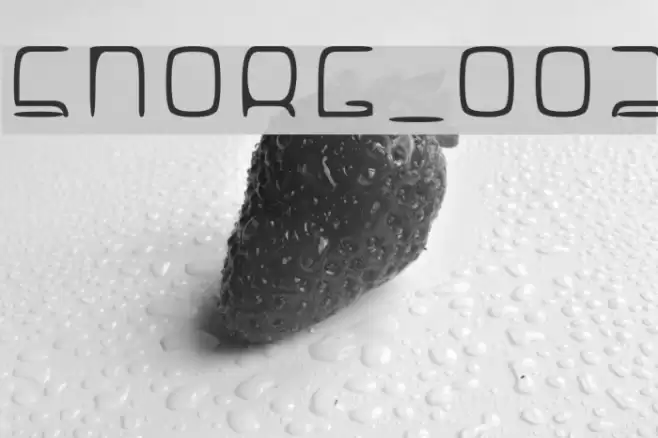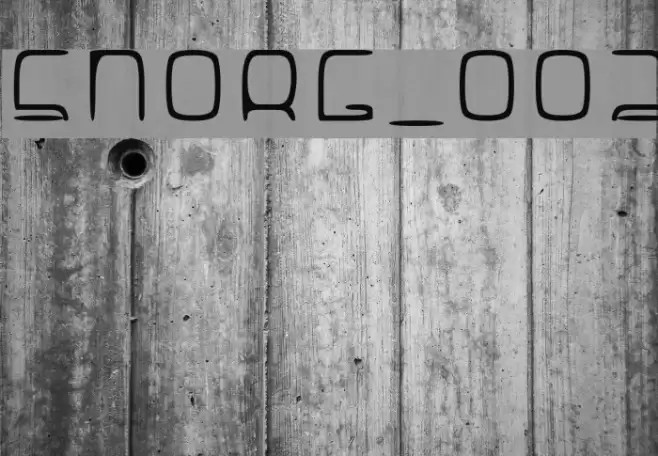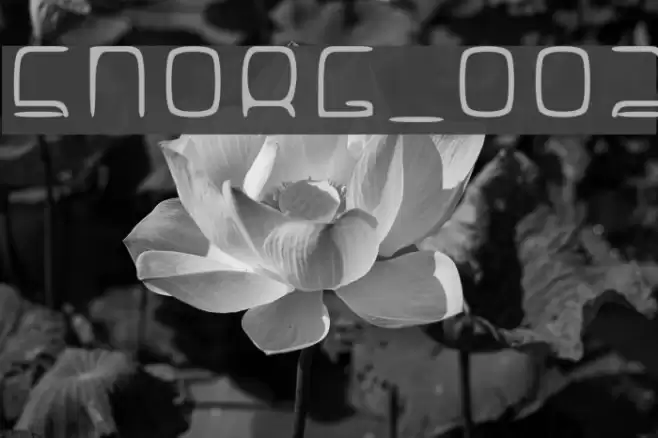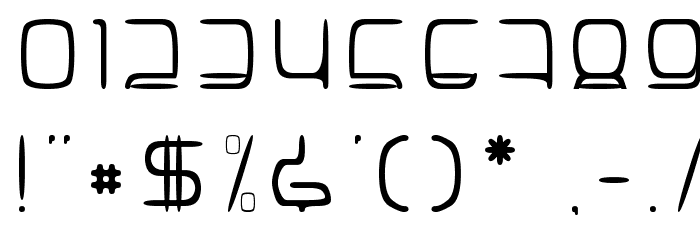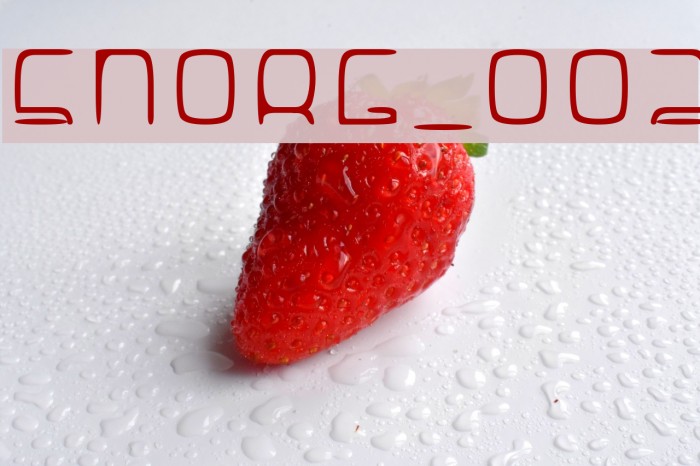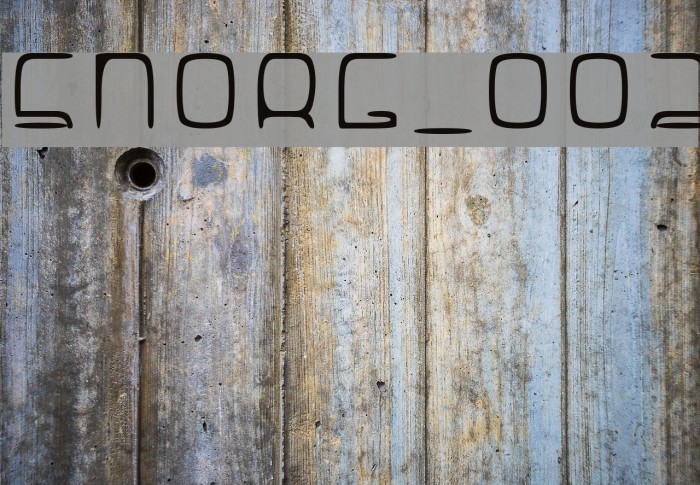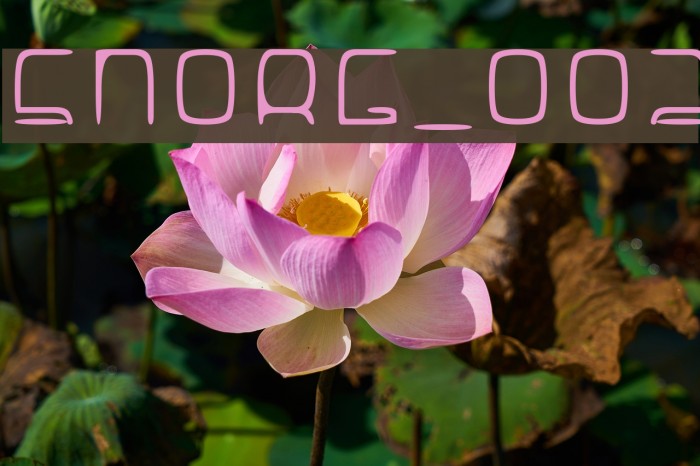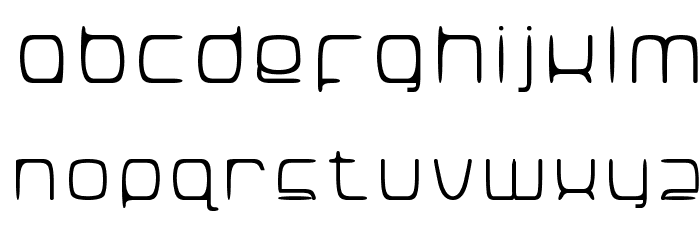
SNORG_002 Font
SNORG_002 Description
This font features a unique and futuristic design with rounded edges and a slightly condensed structure. The characters have a distinct geometric style, with a blend of straight lines and curves that create a modern and sleek appearance. The uppercase and lowercase letters maintain a consistent height, contributing to a uniform look. The numerals and special characters follow the same design principles, ensuring cohesion across all elements. This font's innovative style makes it stand out, offering a fresh take on traditional typefaces.
A futuristic, geometric font with rounded edges and a sleek, modern design from Crazy fonts.
- Proposed Projects: Ideal for tech branding, sci-fi themed projects, modern posters, and innovative product packaging.
- Overall Style: Futuristic